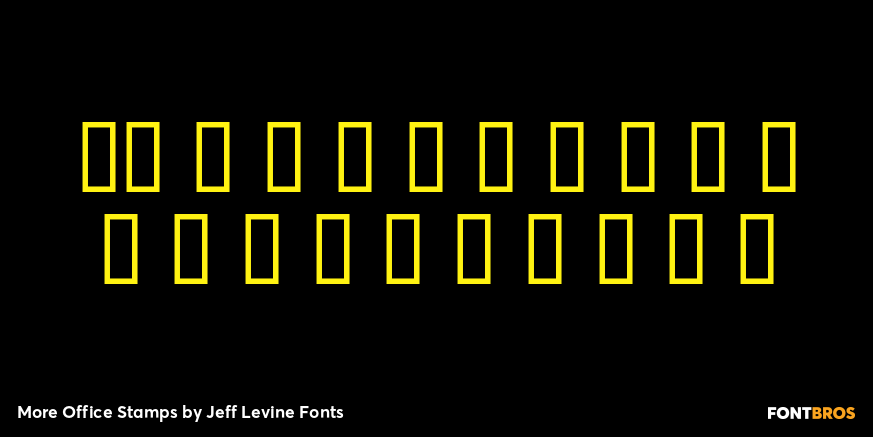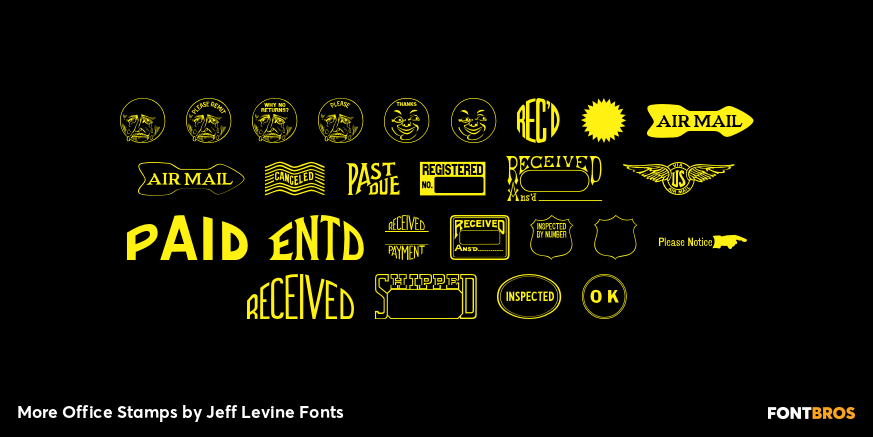
More Office Stamps
More Office Stamps JNL is the companion font to Office Stamps JNL, and collects another twenty-six designs based on vintage 'stock' rubber stamps used in hundreds of offices for decades.
More Office Stamps JNL Regular by Jeff Levine Fonts